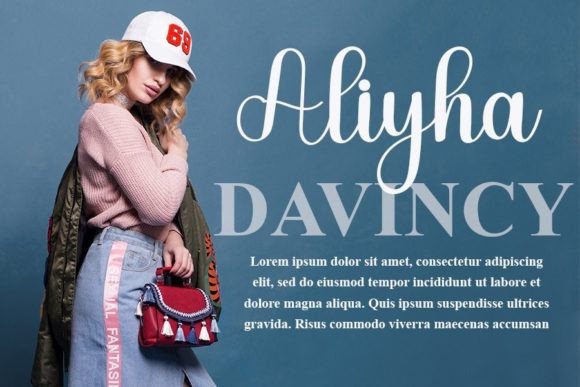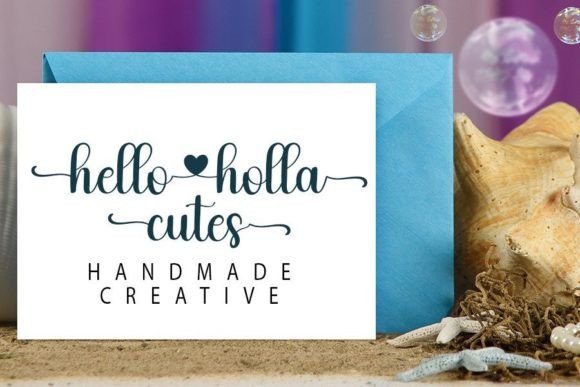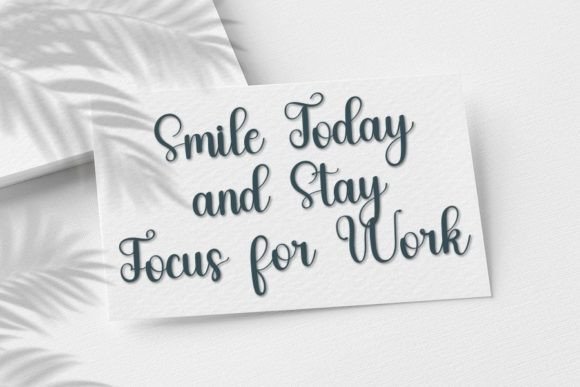
Introduction to Pinky Yellow Font
As a designer, there’s nothing quite like the thrill of finding the perfect font to elevate your creative project. You’re brainstorming ideas, sipping coffee, and scrolling through your design resource library when suddenly, you stumble upon it – a font that makes your heart skip a beat. For me, that font is the Pinky Yellow Font, a stunning handwritten script that adds a touch of elegance to any design.
With its high quality, modern aesthetic and PUA encoded features, the Pinky Yellow Font is a valuable addition to any designer’s toolkit. Whether you’re working on a logo, branding project, or social media post, this beautiful font is sure to impress. And the best part? It’s available for a free download, making it a transparent background of creativity for designers of all levels.
Key Features of Pinky Yellow Font
- High-quality design with a unique and vibrant aesthetic, perfect for creative projects.
- Designed to be highly legible and versatile, making it suitable for a wide range of creative projects and applications.
Honest Review: Pinky Yellow Font
As a designer, I’ve come across numerous fonts, but Pinky Yellow Font caught my attention. This high-quality design resource boasts a unique and vibrant aesthetic that’s perfect for creative projects.
What works well is the transparent background of this font, allowing designers to seamlessly integrate it into their work. The font’s versatility makes it suitable for various design applications, from digital displays to print materials.
- ✨ High-quality design: The font’s crisp and clear lines ensure that your creative project will have a professional finish.
However, there are some limitations to consider: ⚠️ The font may not be suitable for very small text sizes due to its intricate design. Additionally, the font’s color palette is quite limited, which may not cater to all design preferences.
Overall, Pinky Yellow Font is a valuable addition to any designer’s toolkit. While it has its limitations, its unique aesthetic and high-quality design make it a worthwhile download for designers seeking to add a touch of creativity to their projects.
Tips for Getting the Most Out of the Pinky Yellow Font
To maximize the use of the Pinky Yellow Font, experiment with different font sizes, colors, and combinations. You can also use it in conjunction with other design elements, such as graphics and images, to create a unique and visually appealing design.
The Pinky Yellow Font is perfect for a variety of creative projects, including graphic design, digital art, and even print materials. Use it to create eye-catching logos, branding materials, and advertisements, or simply to add a touch of personality to your social media graphics.